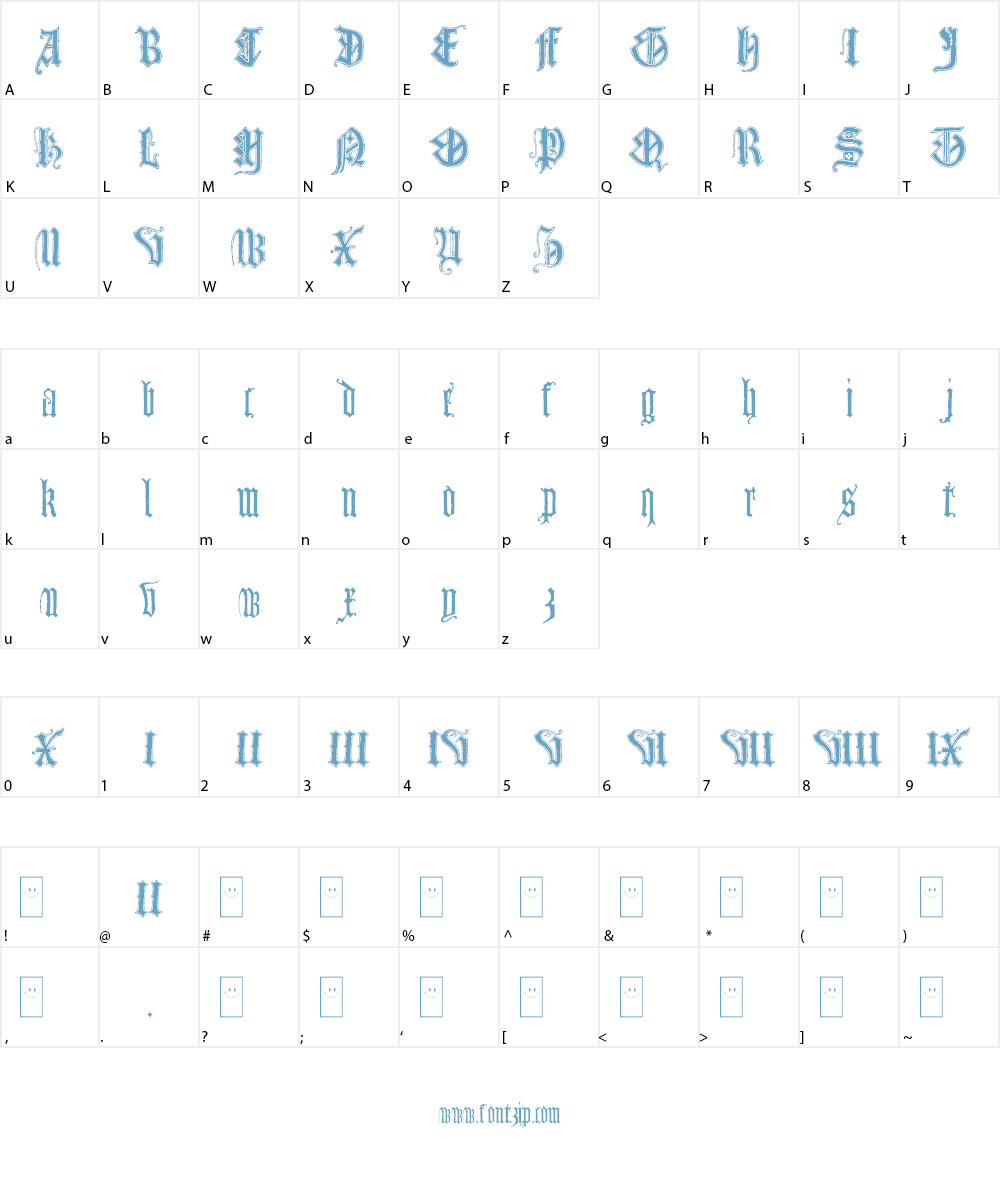
This font is loosely based on the lettering that is found on King Richard the Second's Tomb. I made this font (totally unsolicated) for all the Lords and Ladies at a certain Renaissance Faire in Wisconsin. Free for their use as they see fit.